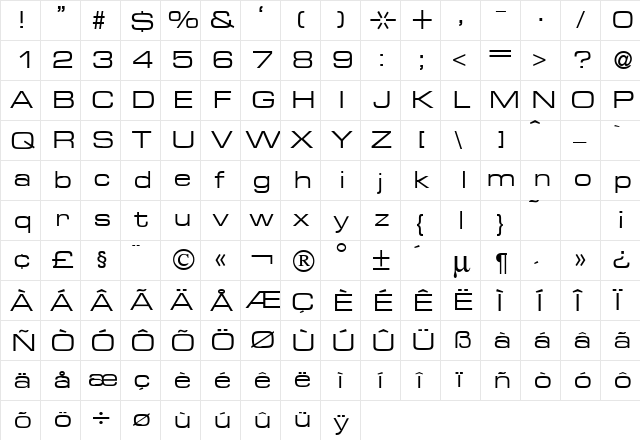
NicoleExtDB Normal Font Preview
NicoleExtDB Normal
Design Context for NicoleExtDB Typeface
NicoleExtDB is a composed and adaptable typeface that performs quietly and consistently across a wide range of design contexts.